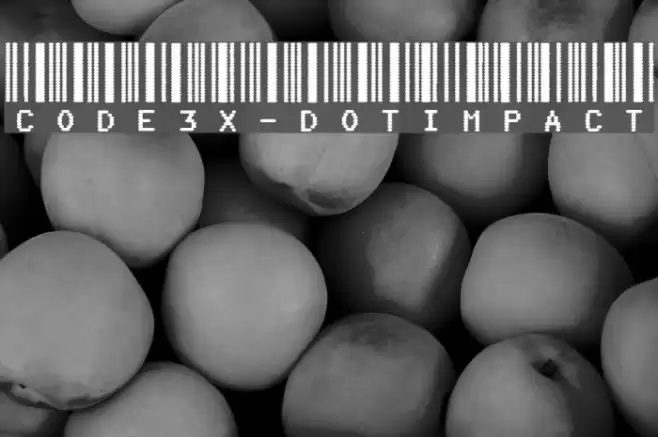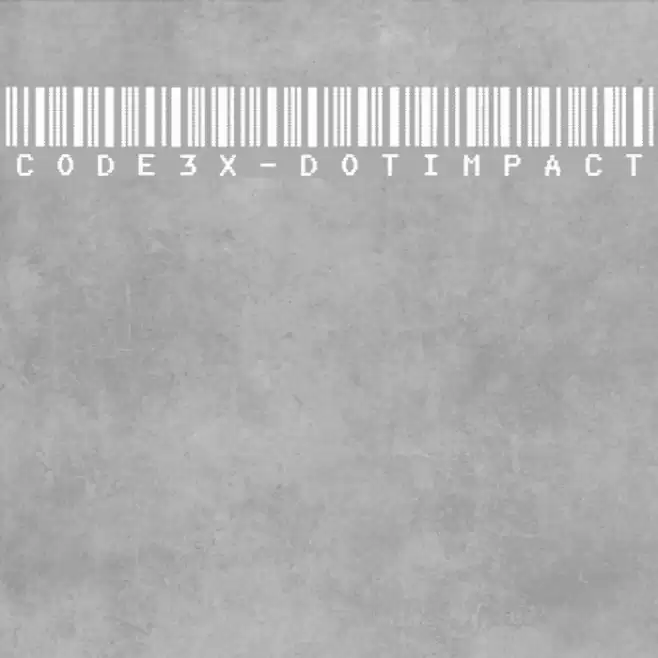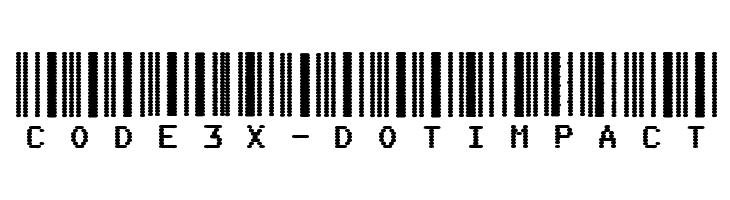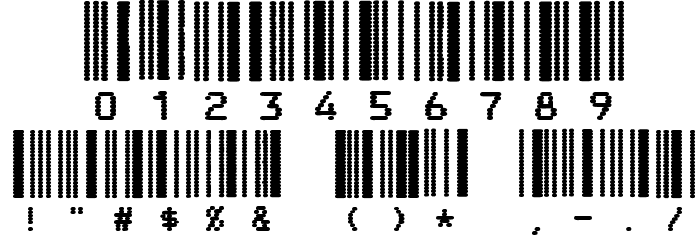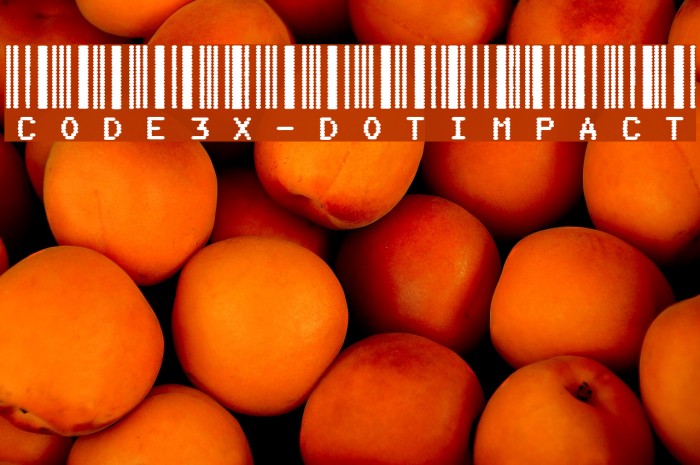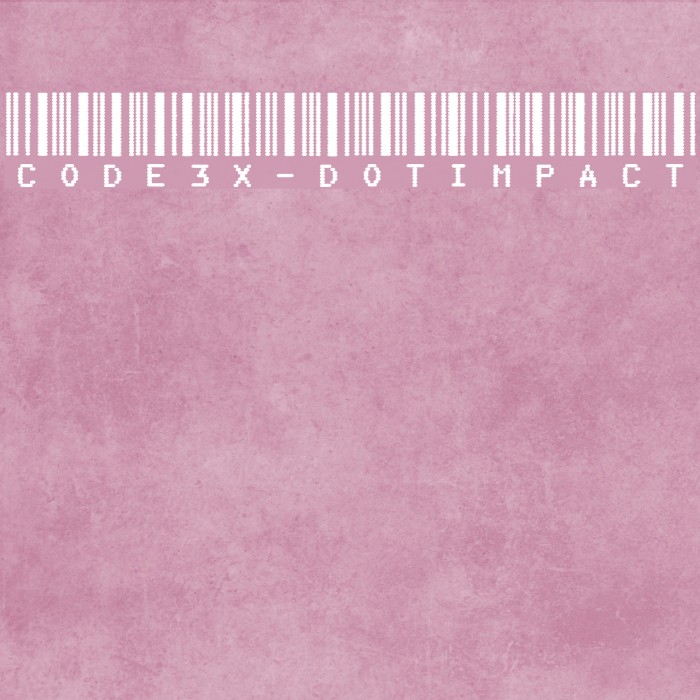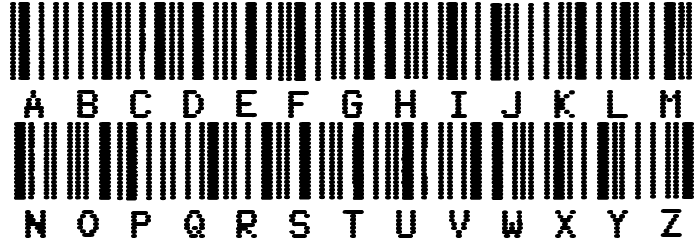
Code3X-DotImpact Font
Code3X-DotImpact Description
This font is characterized by its unique barcode-like appearance, where each character is represented by a series of vertical lines of varying thickness. The design is reminiscent of dot matrix printing, giving it a retro, digital feel. The uppercase and lowercase letters, as well as numbers and special characters, maintain a consistent style, making it suitable for themes that require a technological or industrial aesthetic. The font's structure is highly geometric, with a focus on vertical alignment and symmetry, creating a visually striking effect.
A barcode-inspired font with a retro, digital aesthetic from Uncategorized fonts.
- Proposed Projects: Ideal for projects involving technology themes, digital art, industrial design, or any creative work that benefits from a futuristic or retro digital look.
- Overall Style: Modern, Digital, Industrial
- Use Case: Logos, Posters, Digital Art, Tech-themed Designs